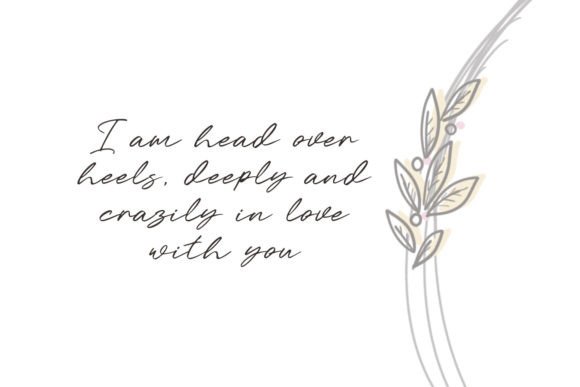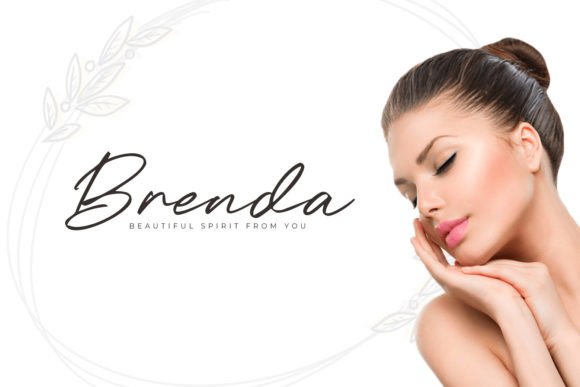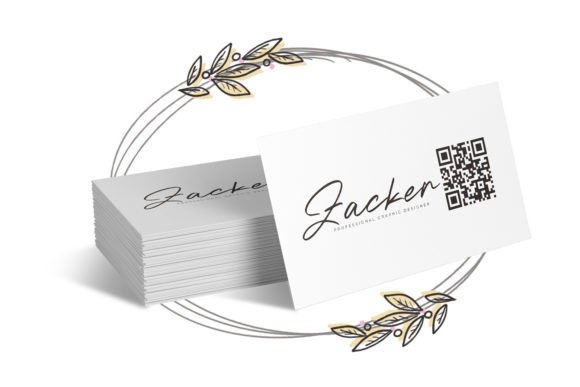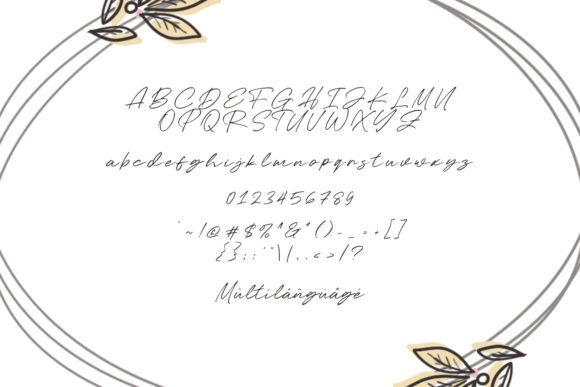
The Ultimate Guide to Callite Font: Elevate Your Designs with Elegance
Have you ever been in the middle of a design project, and suddenly, you’re stuck on finding the perfect font? I recall a recent experience where I was working on a client’s logo design, and I just couldn’t seem to find a font that captured the essence of their brand. That’s when I stumbled upon Callite Font, and it completely transformed my design. In this article, we’ll dive into the world of Callite Font, exploring its features, uses, and everything in between.
A Personal Review of Callite Font
As a designer, I’m always on the lookout for fonts that can elevate my creations. Here’s my honest review of Callite Font:
- ✨ Clean and stylish design that works well for a variety of projects
- ✅ Modern and elegant feel that’s perfect for posters, logos, magazines, and more
- 💫 Highly versatile and can be matched with an incredibly large set of projects
- 🎨 Beautiful OpenType features, glyphs, and stylistic alternates that add depth to your designs
- 🤔 Some users might find the font a bit too elegant for certain projects, such as casual or playful designs
- ⚠️ Limited availability of certain glyphs or special characters, but this can be addressed with font combinations
The Backstory of Callite Font
Callite Font was designed with the intention of creating a clean, stylish, and modern script font that could be used for a variety of projects. The designer aimed to create a font that was both elegant and versatile, making it perfect for posters, logos, magazines, and more. While the designer’s true identity remains a mystery, their passion for typography and design is evident in the font’s beautiful OpenType features and glyphs.
| Font Name | Callite Font |
| Author | Khurasan |
| What is Callite Font? | Callite Font is a clean, stylish, modern, and elegant script font perfect for posters, logos, magazines, book covers, banners, and many more! |
| Is Callite Font suitable for body text? | While Callite Font is beautiful, it’s best suited for headlines, titles, and short paragraphs. For body text, you may want to consider a more readable font. |
| Is Callite Font available in different languages? | Callite Font may not support all languages, but it does include a range of glyphs and special characters. Be sure to check the font’s capabilities before using it for a specific project. |